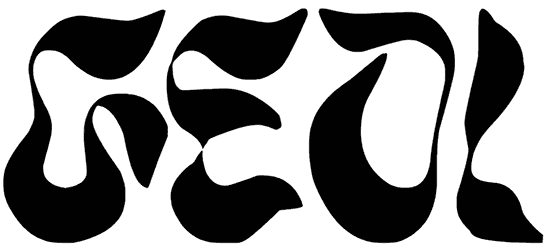
Broken Trunk Font
Due to the creative and natural identity of your typographic design through this cartoon font, no one can turn their attention away from your artwork for a moment.
Three different files of this fantasy Broken Trunk font along with its sweeper and aesthetic design are enough to give you the flexibility and authority to decorate any text for poster, movie title, book cover, cartoon, and anything else despite lacking numbers.